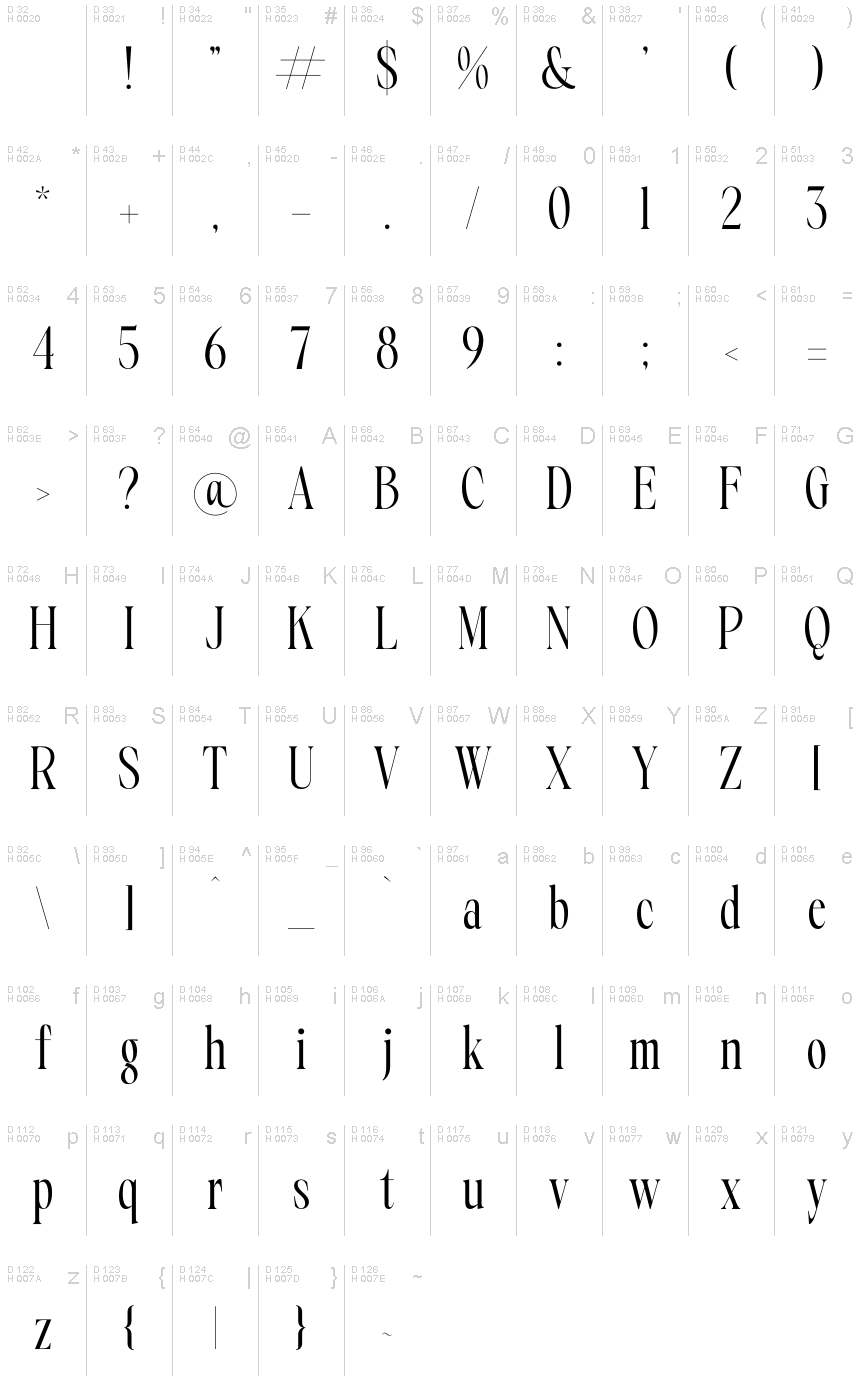
Franlest Dreaming
Franlest Dreaming, a captivating serif font crafted by Storytype Studio, exudes a captivating blend of elegance and whimsy. Its condensed width lends an air of sophistication, while the intricate details and flourishes evoke a sense of dreamlike enchantment. This versatile font effortlessly transitions between formal and casual settings, making it a compelling choice for a wide range of design projects.
Franlest Dreaming's unique character shines through its delicate serifs and subtle stroke variations, creating a visually distinctive and memorable aesthetic. Its refined, yet approachable, nature lends itself well to editorial design, branding, and even digital interfaces, where it can elevate the overall visual impact with its timeless allure.